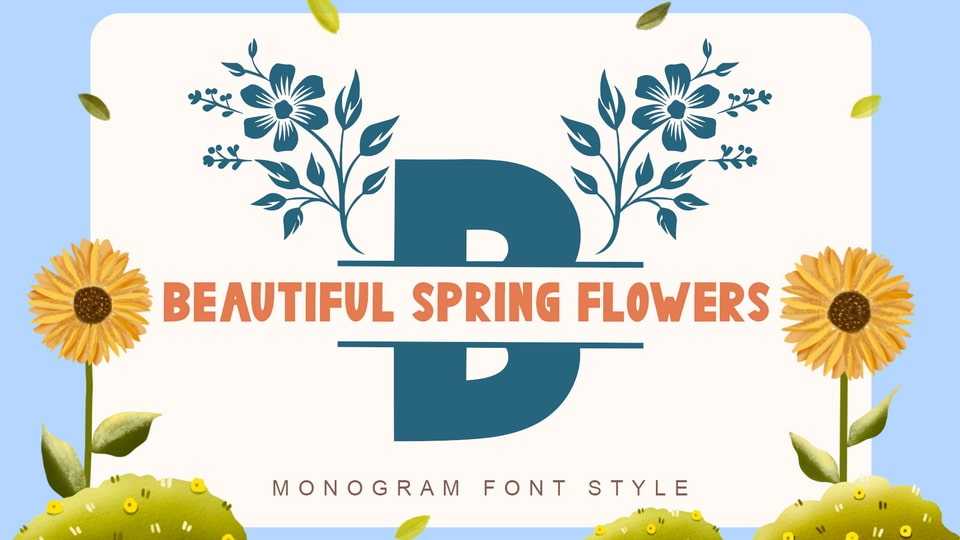
Download Beautiful Spring Flowers Monogram font, a unique and beautiful monogram typeface. Very suitable for weddings, invitations, logos, stickers, posters, prints, branding, summer, spring, easter and others.